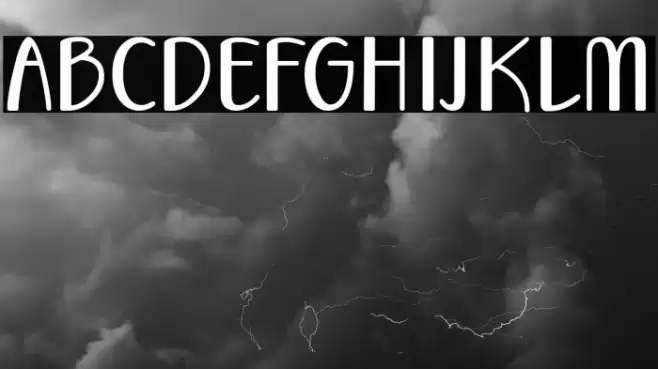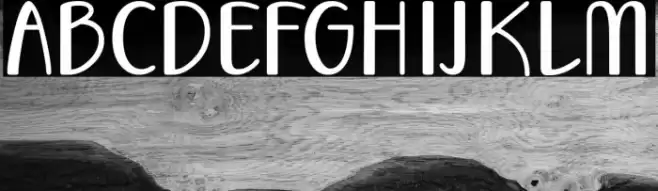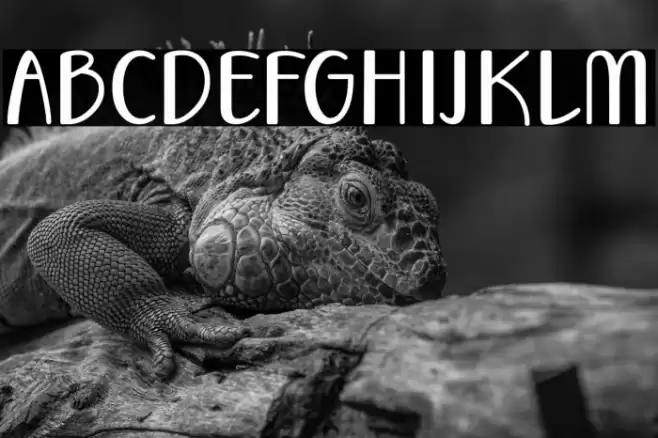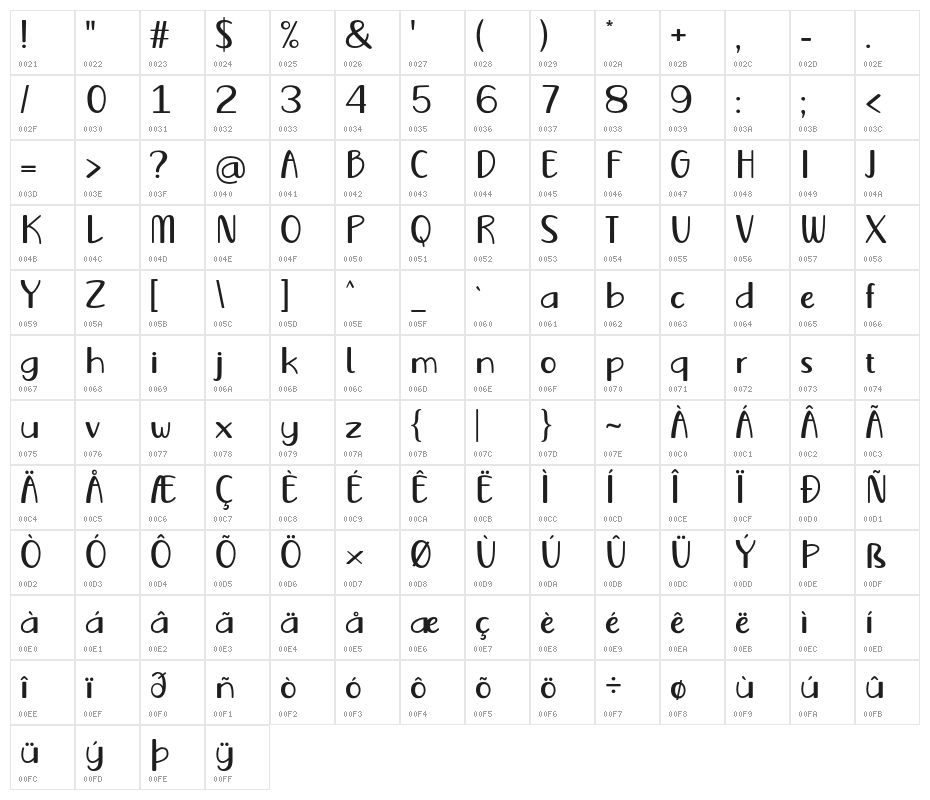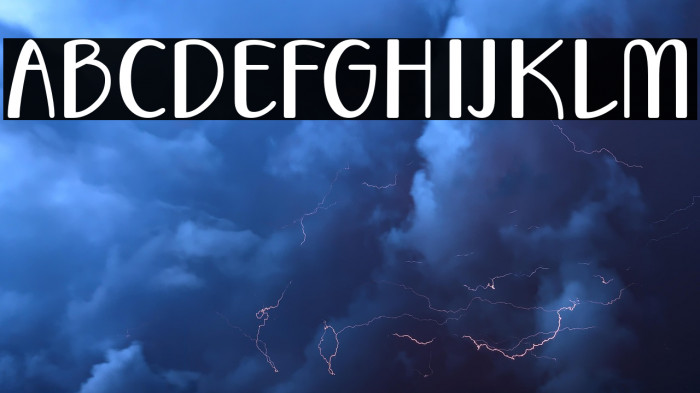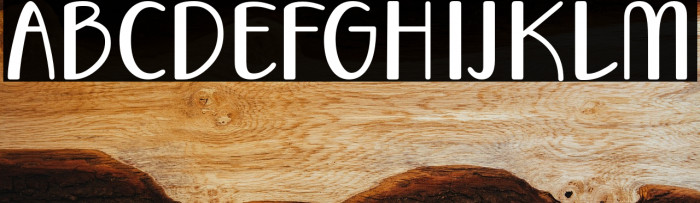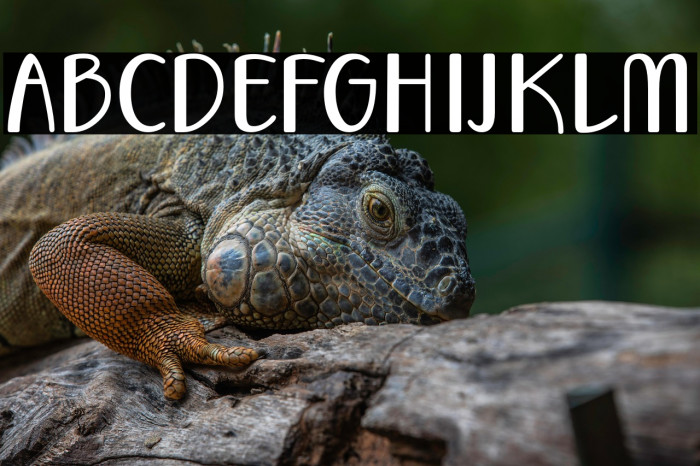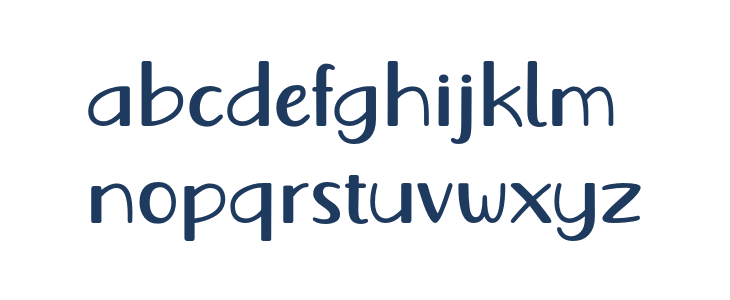
Vecoly Font
Vecoly Description
This font features a playful and whimsical style, characterized by its rounded and slightly irregular letterforms. The uppercase letters are tall and narrow, with a gentle curve that adds a touch of friendliness. The lowercase letters maintain a consistent style, with smooth curves and a slightly informal appearance. The numerals are bold and clear, ensuring readability. Special characters are designed to match the overall playful aesthetic, making them suitable for creative projects. The font's unique style makes it ideal for projects that require a fun and approachable look.
A playful and whimsical font with rounded, slightly irregular letterforms from Uncategorized fonts.
- Font: Vecoly
- Proposed Projects: Ideal for children's books, playful branding, greeting cards, and creative posters.
- Overall Style: Playful
- Use Case: Headlines, Logos, Creative projects